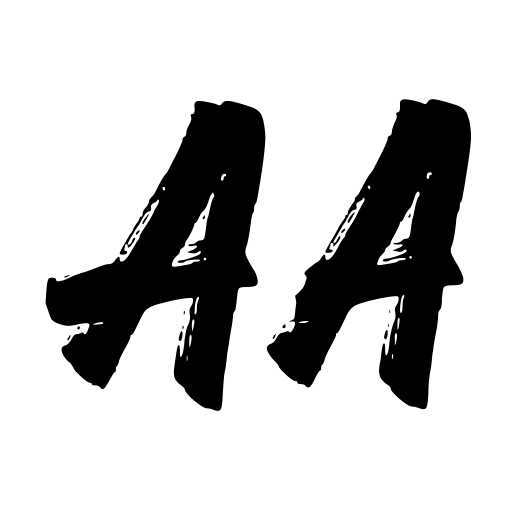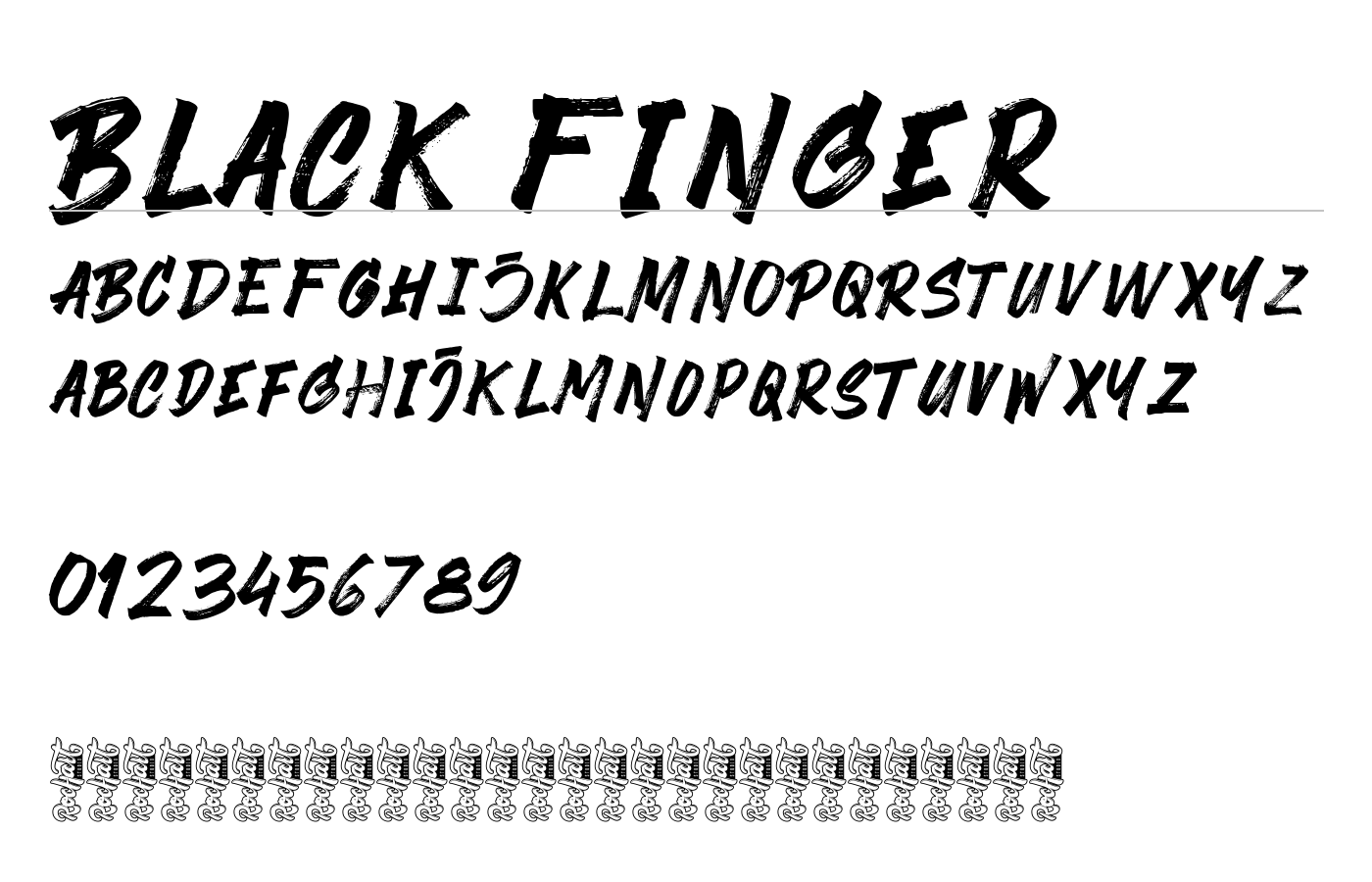
Black Finger is a bold, expressive brush script font with a rugged, hand-painted feel. Its irregular strokes and textured edges give it an energetic and edgy personality, making it perfect for creative projects that need a dynamic and informal vibe. This font works well for eye-catching headlines, posters, branding, and packaging that want to convey a sense of raw authenticity and artistic flair.
Black Finger Font
About Black Finger Font